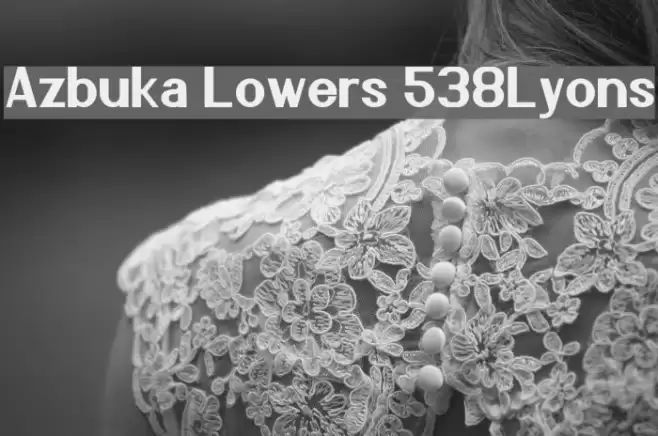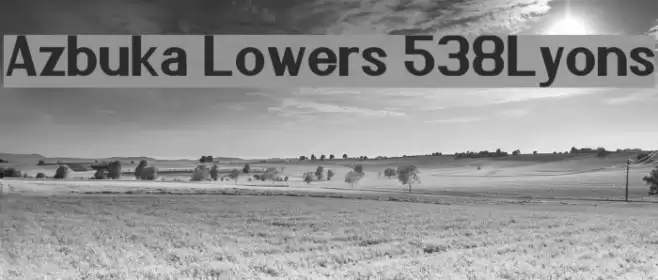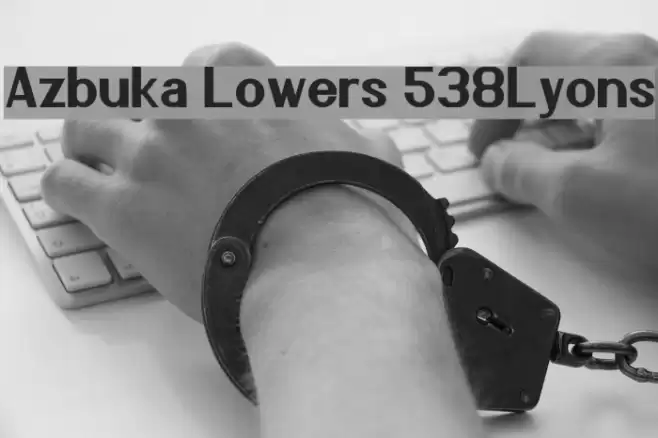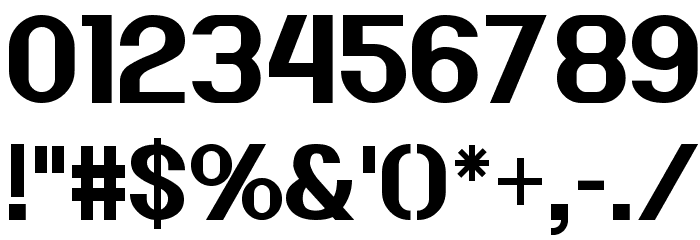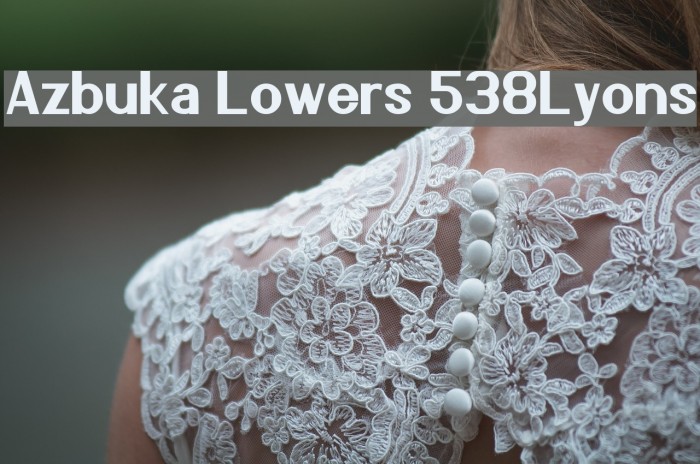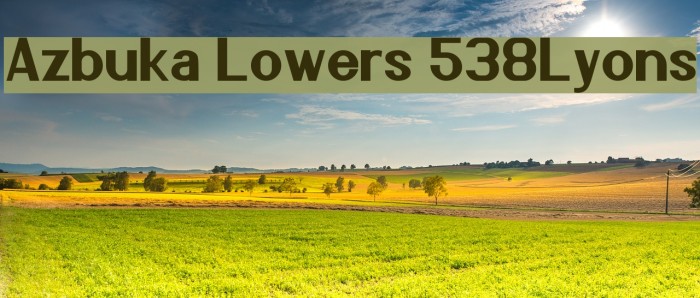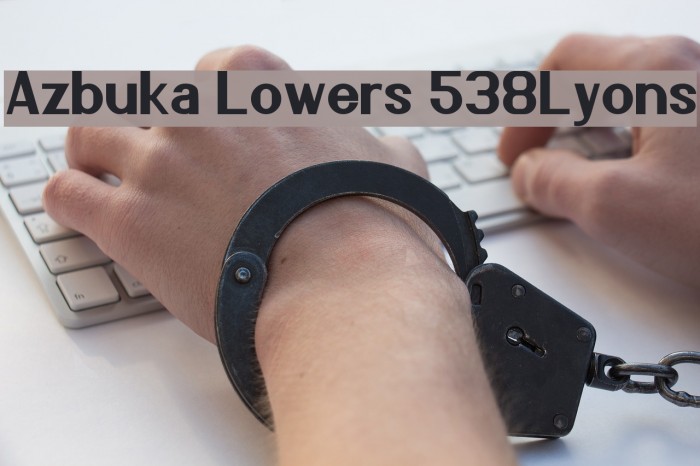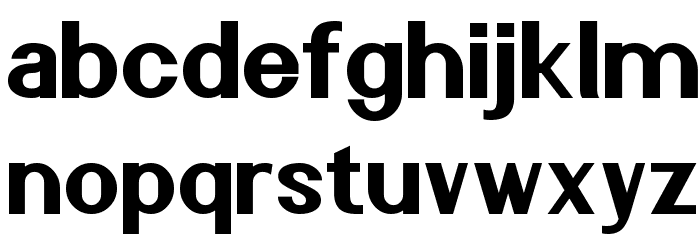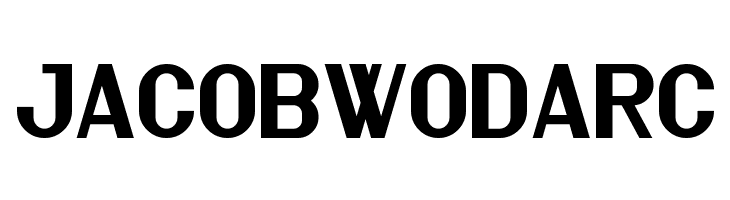
Azbuka Lowers 538Lyons Font
Azbuka Lowers 538Lyons Description
This font features a bold and modern sans-serif design, characterized by clean lines and a strong presence. The uppercase letters are uniform and geometric, while the lowercase letters maintain a consistent style with slightly rounded edges. The numerals are clear and legible, matching the overall boldness of the alphabet. Special characters are well-integrated, maintaining the font's cohesive look. The font's design is versatile, making it suitable for a variety of applications where clarity and impact are essential.
A bold, modern sans-serif font with clean lines and strong presence from Uncategorized fonts.
- Proposed Projects: Ideal for branding, advertising, headlines, and digital media where a bold statement is needed.
- Use Case: Headlines, Logos, Advertising